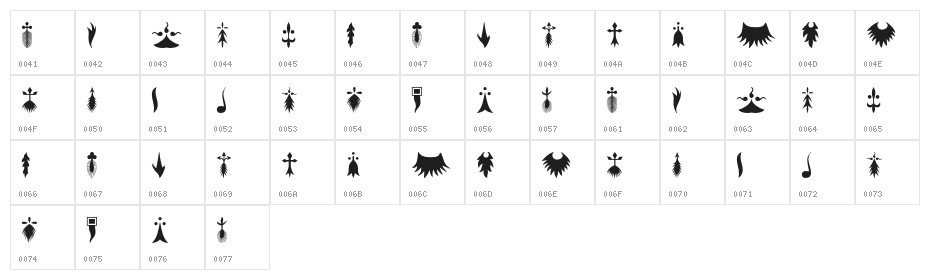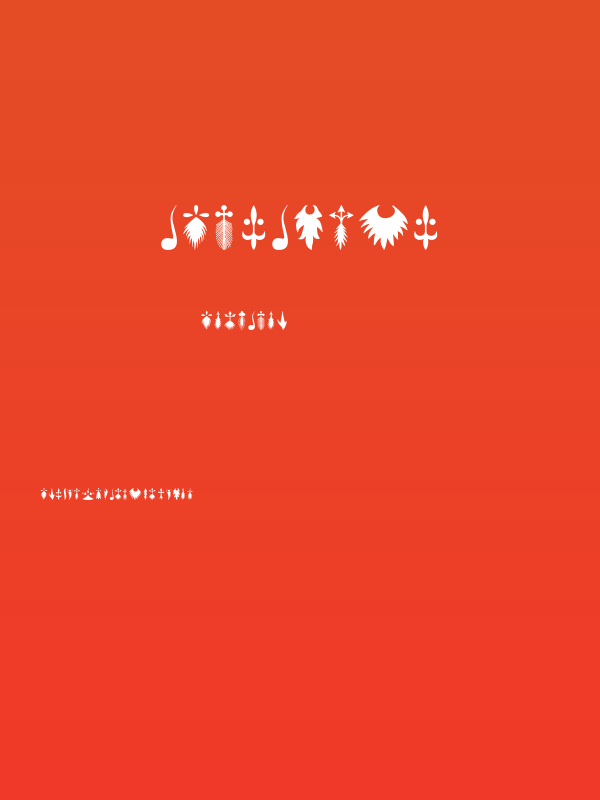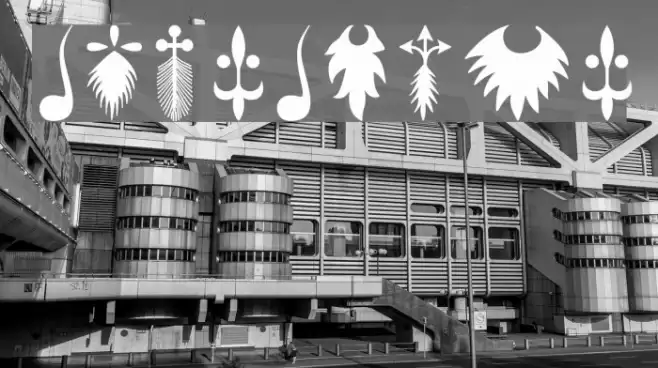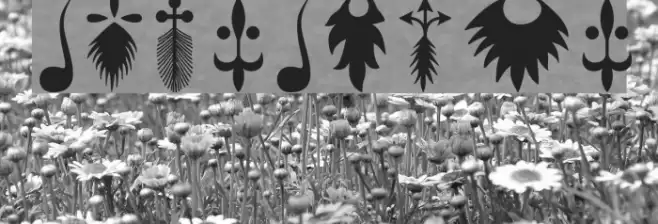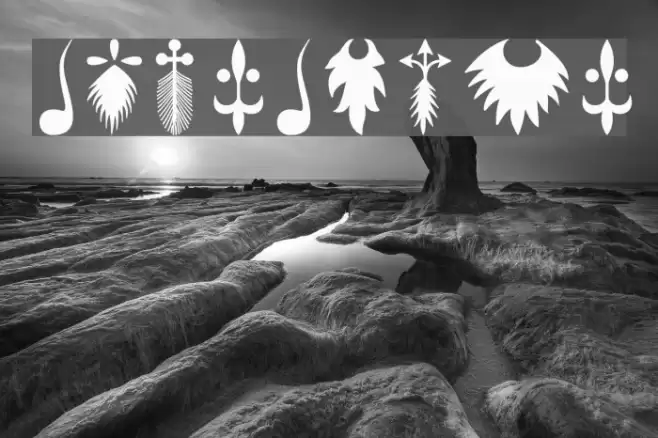
RTA Ermine Font
RTA Ermine Description
This is not a valid font. The image consists of a series of abstract, decorative symbols that do not correspond to any recognizable alphabet or numerical system. Each symbol appears to be unique, with intricate designs that resemble stylized motifs or emblems rather than letters or numbers. The overall composition suggests a focus on artistic expression rather than functional typography.
| Use Case | Logos, Decorative elements |
| Proposed Projects | These symbols could be used in artistic projects, such as logo design, pattern creation, or as decorative elements in graphic design. |